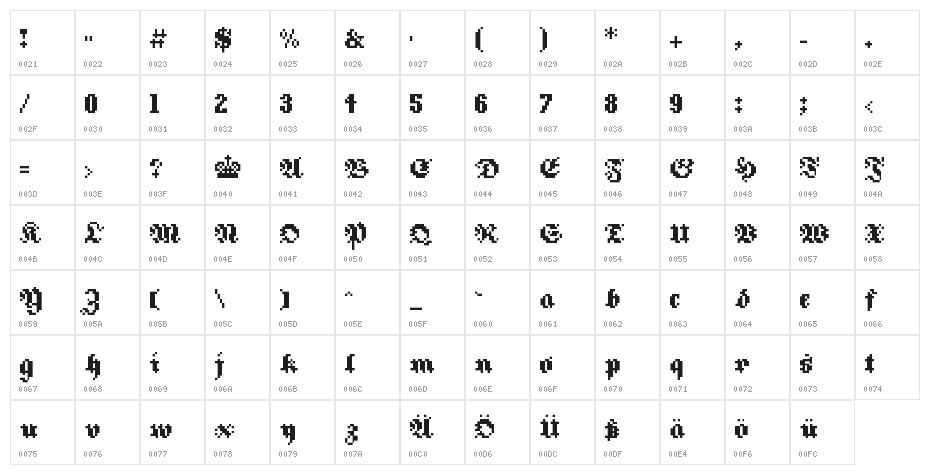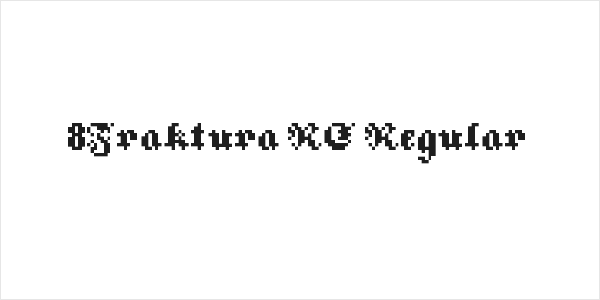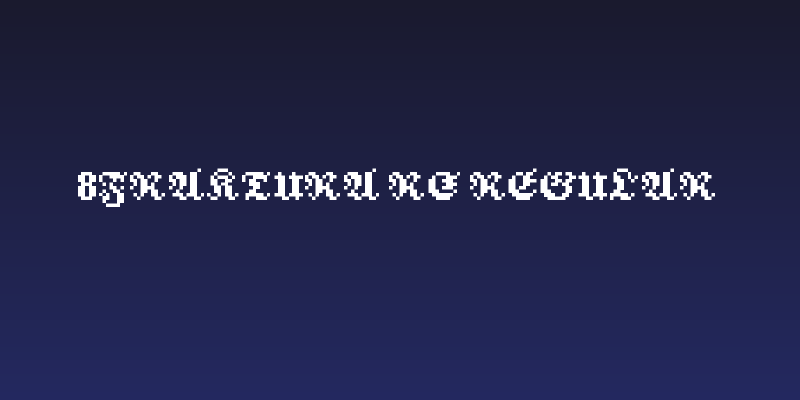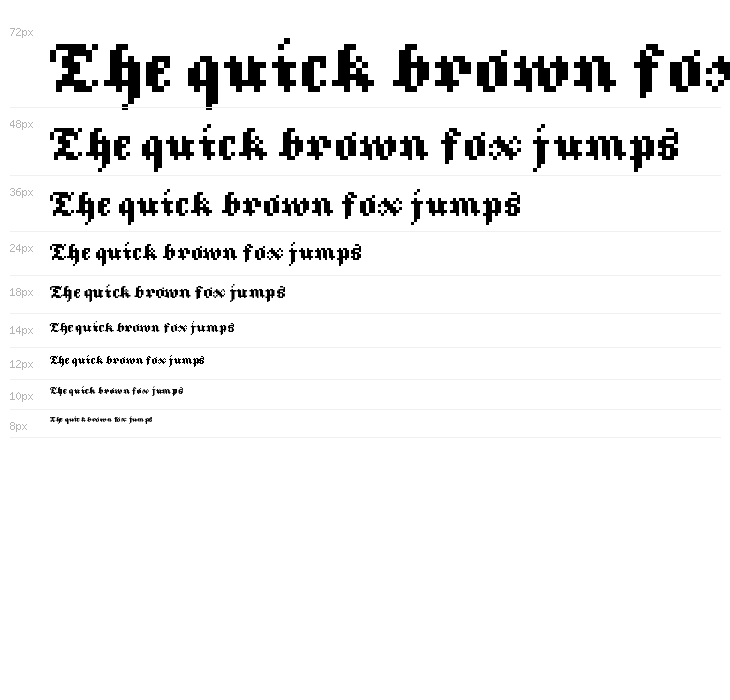
8Fraktura RC Regular Font
| Kategorien | Gothic |
| Gesamtstil | Retro, Decorative |
| Anwendungsfall | Logos, Headlines, Posters |
| Vorgeschlagene Projekte | Ideal for video game graphics, retro-themed posters, digital art projects, and any design work that seeks to evoke a sense of nostalgia or uniqueness. |